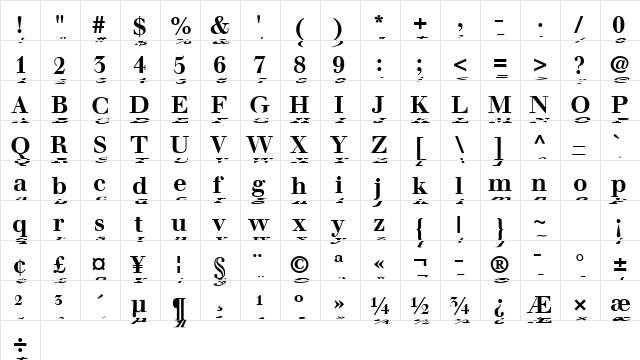
Walbaum Float Bold
Design Context for Walbaum Float Typeface
Walbaum Float offers clean, dependable letterforms without strong stylistic allegiance, making it a practical choice for designers who need flexibility. Its bold stroke weight gives it real presence on the page.
Pro Tip: Use Walbaum Float in both headline and body roles to test its range before committing to a single application.